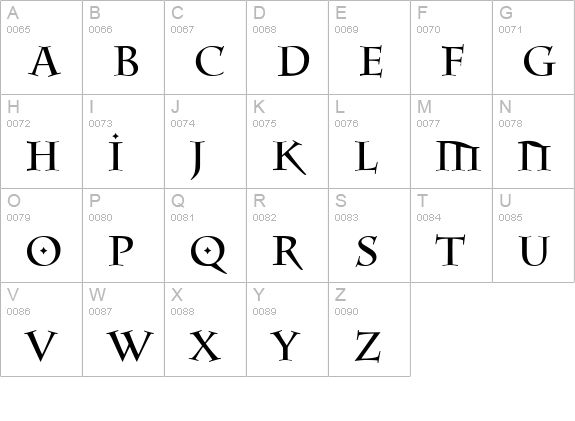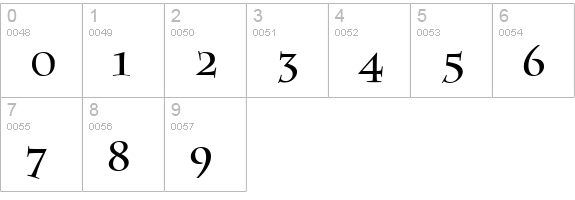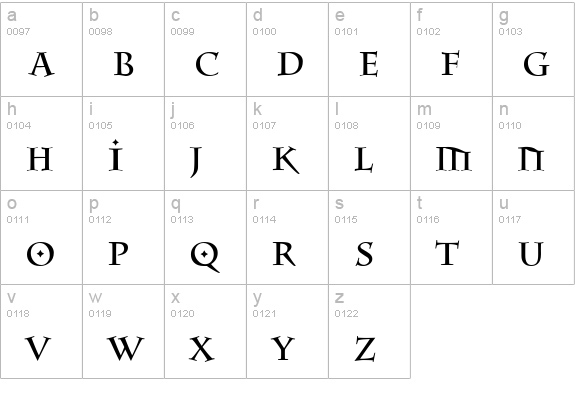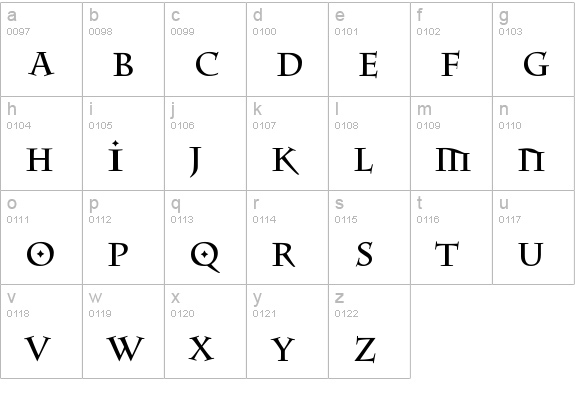
Parish Light is a refined, elegant variant in the Parish typeface family \xE2\x80\x94 well suited to elegant body text, refined sub-headings, and luxury branding.
Parish Light font is a stunning and elegant typeface that exudes sophistication and charm. With its delicate strokes and graceful curves, this font is perfect for adding a touch of elegance to any design project. Whether you are crafting wedding invitations, designing a logo, or creating a beautiful piece of typography artwork, Parish Light font will effortlessly elevate your creations to new heights. What sets Parish Light font apart is not only its exquisite design but also its accessibility. It is freely available to download at FontsMarket.com, allowing designers and creatives to easily incorporate it into their projects without any cost. This means that you can bring a touch of luxury and style to your designs without breaking the bank. The versatility of Parish Light font is another reason why it is a must-have in any designer's toolkit. Whether you are going for a classic and timeless look or a modern and edgy feel, this font can adapt to any style effortlessly. Its clean and legible characters make it ideal for both large display text and small body copy, ensuring that your message is conveyed with clarity and impact. With Parish Light font, you can add a touch of sophistication and elegance to your designs without compromising on readability or style. Its timeless appeal and freely available download make it a valuable asset for designers, whether they are professionals or hobbyists. So why wait? Unlock the beauty of Parish Light font and take your designs to the next level. Download it for free at FontsMarket.com and let your creativity shine.